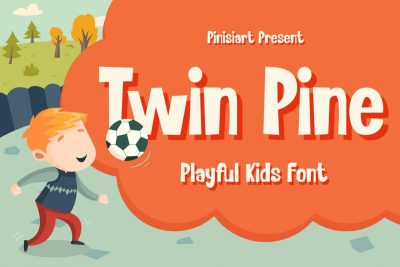
Kids font Twin Pine
Kids font Twin Pine is a playful and cheerful typeface that embodies the spirit of fun and creativity. Its bold shapes, slightly irregular forms, and rounded edges create a whimsical, friendly look. Designed to capture the attention of young audiences, this font is full of energy and charm. Inspired by the carefree nature of children, Twin Pine is perfect for projects that encourage joy and imagination.
The font strikes a balance between readability and playfulness, making it versatile for different uses. Its clean yet quirky design works well for digital media and print. Whether you’re creating a storybook, a party invitation, or educational materials, adds warmth and excitement to your designs. Its vibrant style ensures your project stands out with a fun, kid-friendly vibe,  It makes any project memorable and engaging for any audience.
Kids font Twin Pine Perfect For
Twin Pine is ideal for designers, educators, and brands focusing on children and families. Teachers can use it to create engaging posters, worksheets, and activity books. The font’s playful style helps make learning materials more inviting and enjoyable for young learners.
Parents and event organizers will find it great for birthday invitations, banners, and themed party decorations. Its cheerful aesthetic is perfect for creating fun, child-focused visuals.
Businesses and marketers targeting kids’ products, such as toys, snacks, or clothing, can use for branding and packaging. The font’s lively look instantly appeals to children while staying approachable for parents.
App and game developers can use for kid-focused interfaces, in-app text, and icons. It’s also a great choice for children’s book covers and headings, helping stories feel more magical and engaging.
In summary, Kids font Twin Pine is a valuable tool for creating fun and memorable designs. Its joyful style ensures it connects with young audiences while keeping projects professional and effective.
Happiness will spread all over the world when Twin Pine is used as the text.